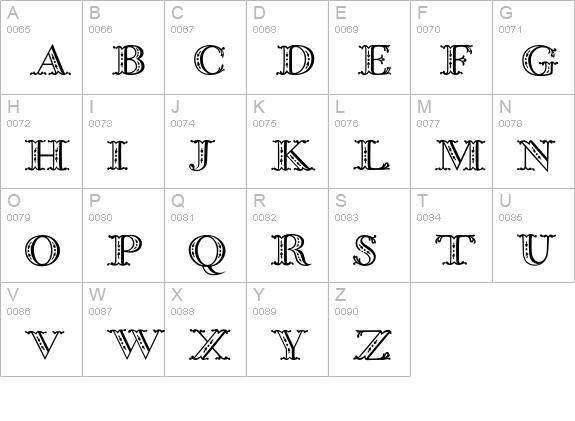
Introducing BodoniClassic-ShadowInitials font, a stunning and elegant typeface that exudes sophistication and class. This font features intricate shadow detailing that adds depth and dimension to any design. With its classic Bodoni styling and unique shadow effect, BodoniClassic-ShadowInitials is perfect for adding a touch of luxury to your projects. The best part? BodoniClassic-ShadowInitials font is completely free for personal and commercial use. You can download this exquisite font at FontsMarket.com and elevate your designs with its timeless charm. Whether you're working on branding, invitations, or editorial layouts, BodoniClassic-ShadowInitials font is sure to make a statement and leave a lasting impression. Elevate your typography game with this exquisite font today!